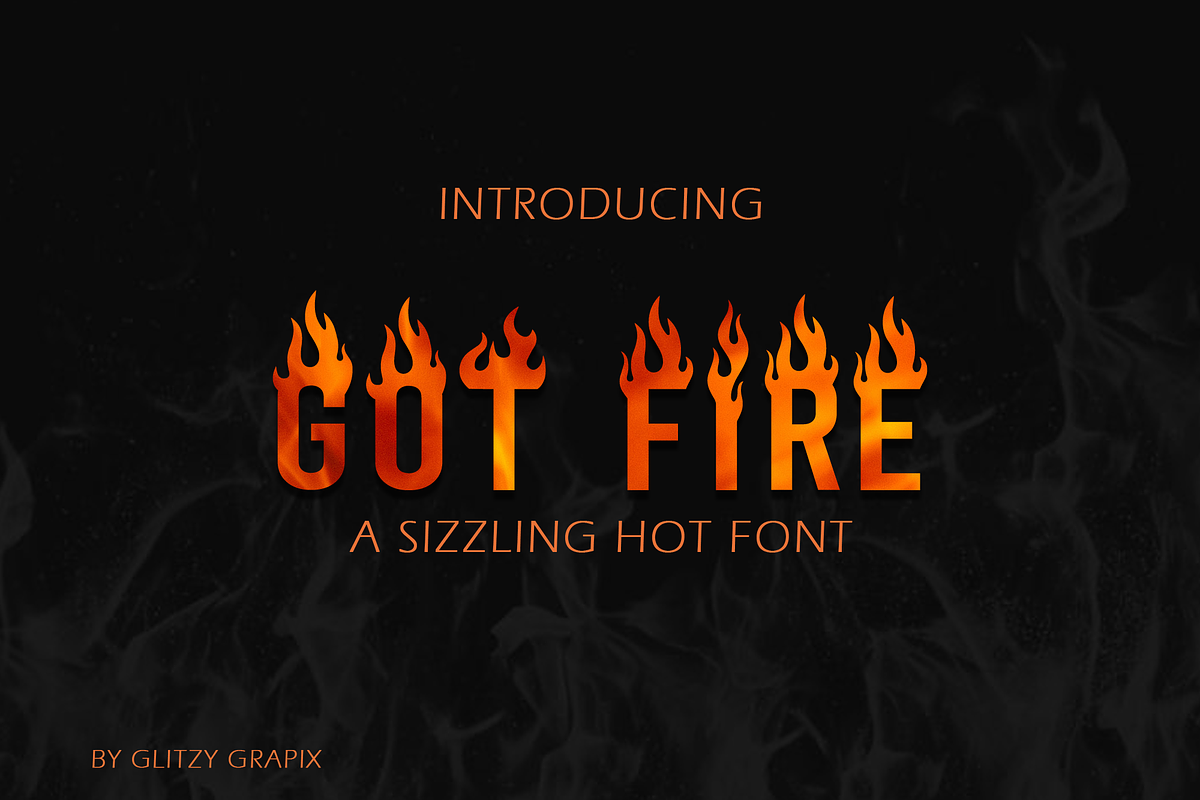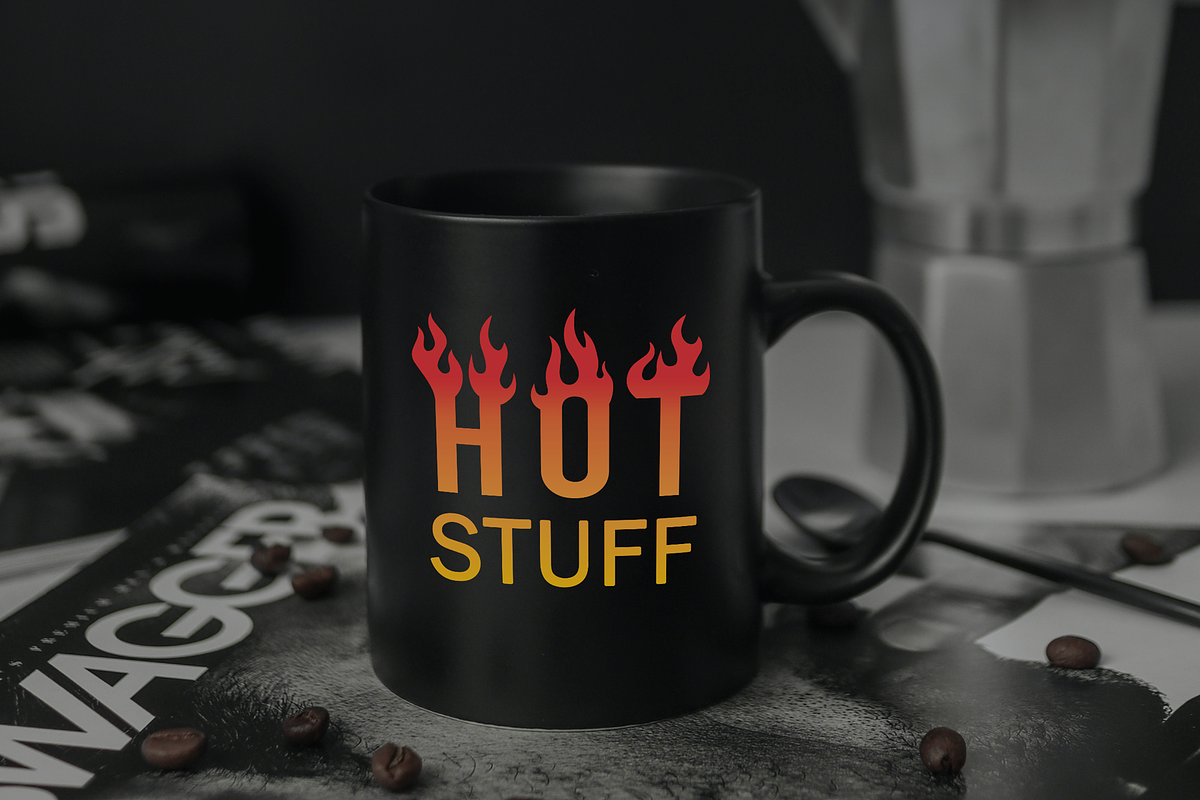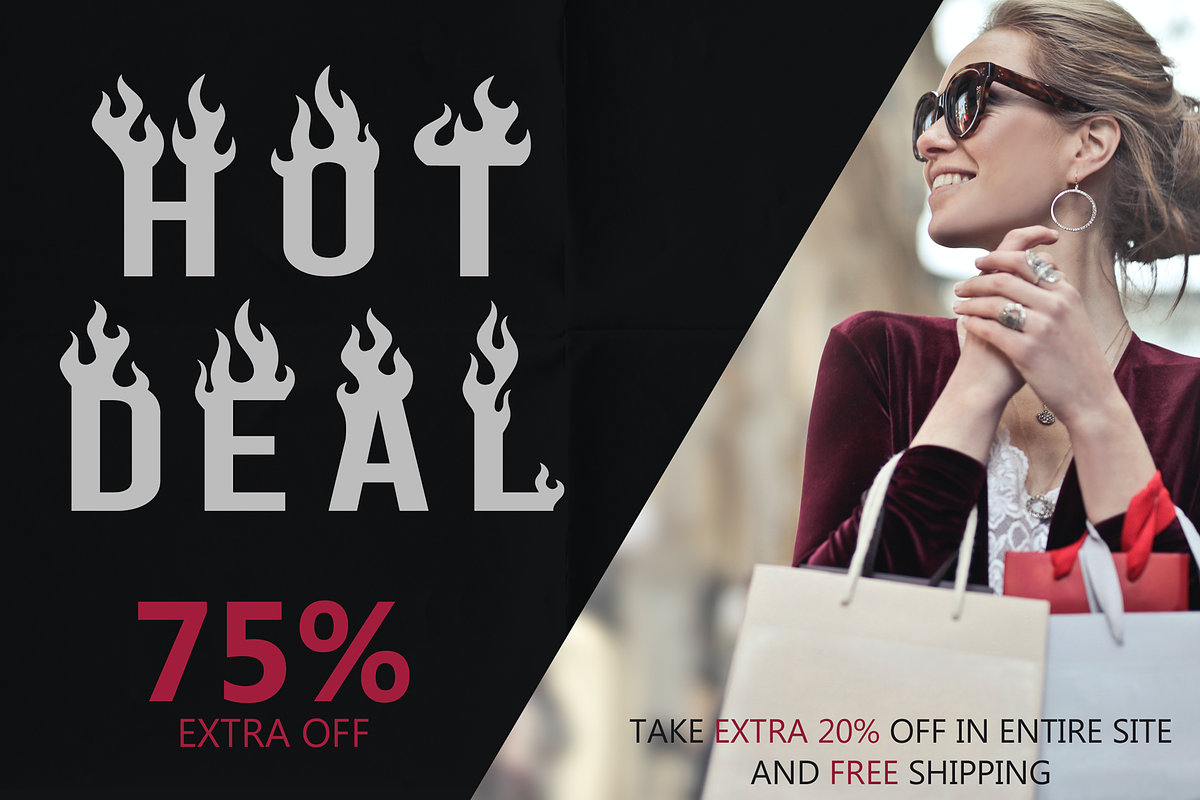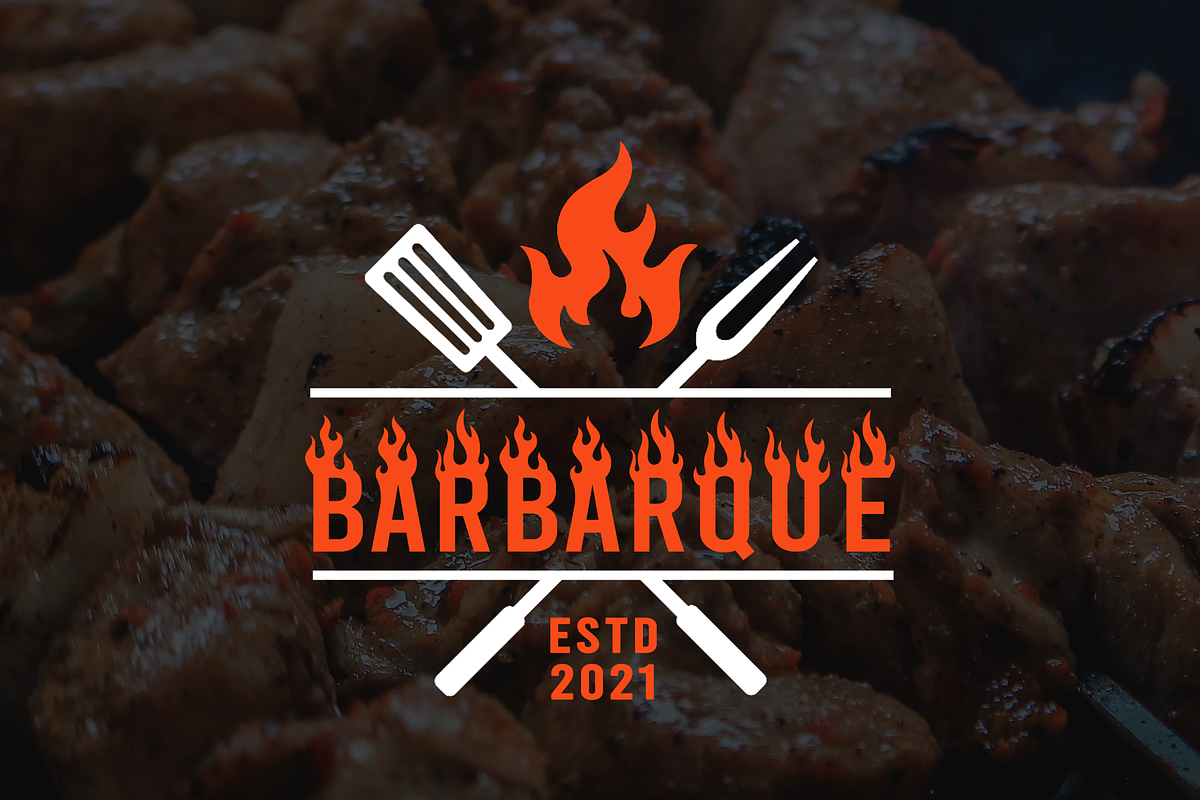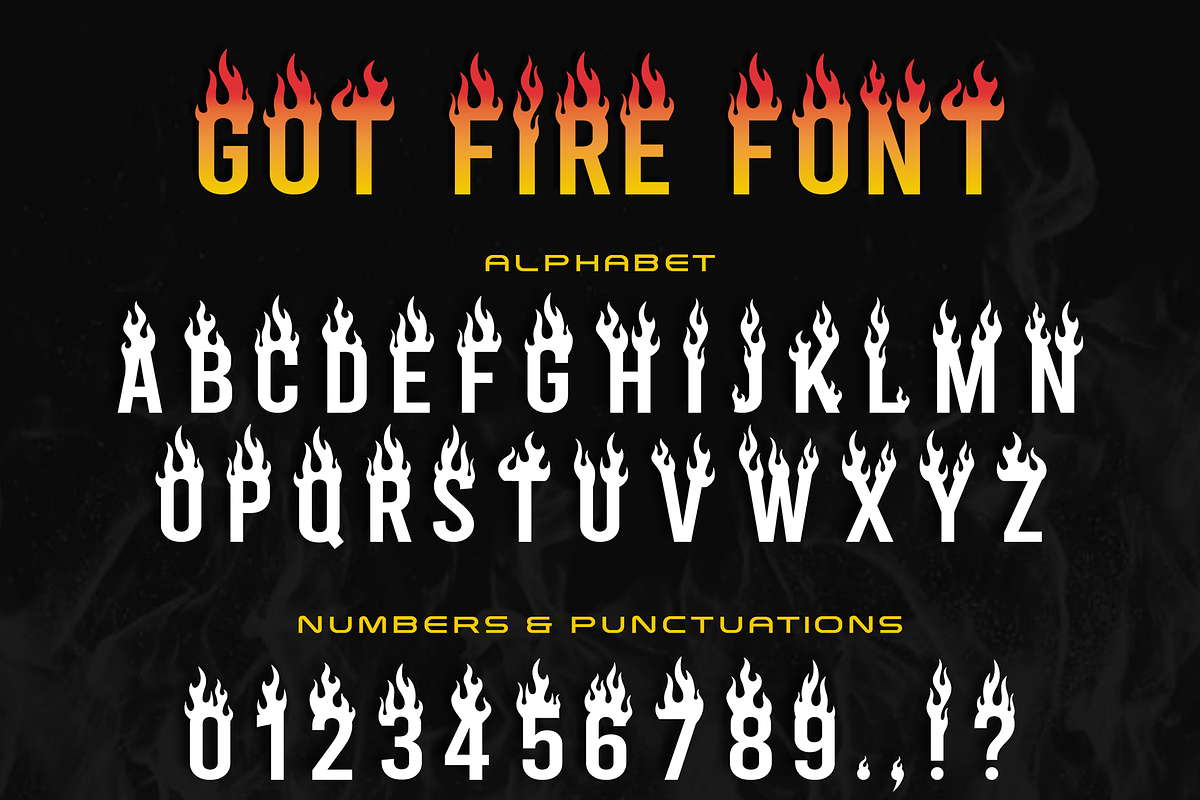
Got Fire Font – A Sizzling Hot Font
Got Fire is a sizzling hot display font and is ideal for adding fire or flames to your project. It can be used for various purposes such as logos, headings, t-shirts, mugs, posters, badges and so much more.